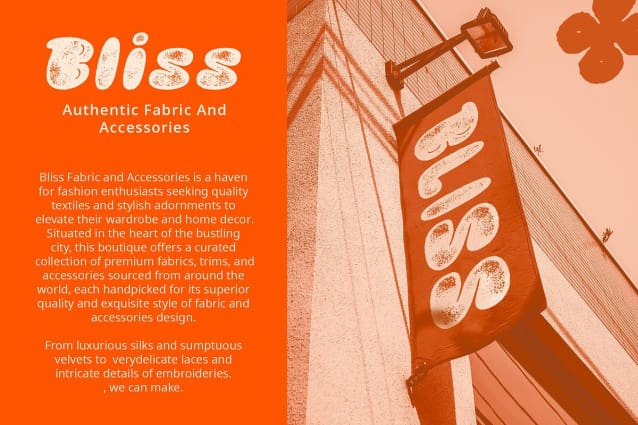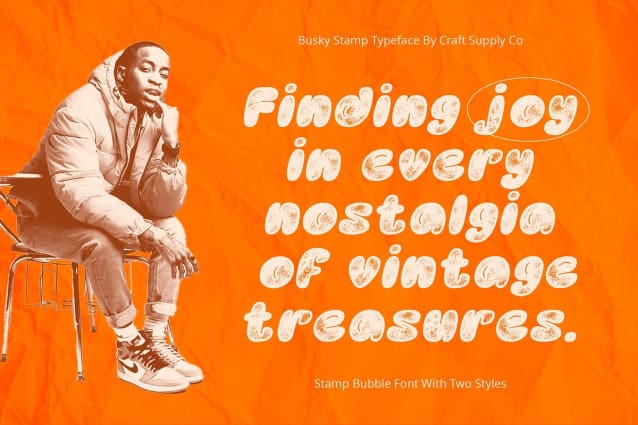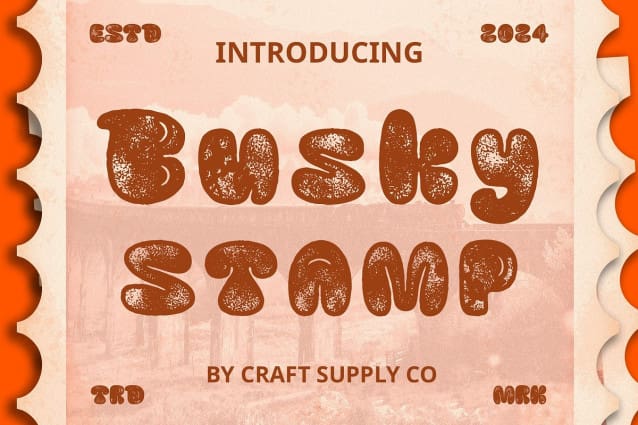
Busky Stamp Font
Busky Stamp Font: Vibrant Bubble Display Font. Inspired by Balloons and Graffiti Busky Stamp draws inspiration from the playful shapes of balloons and the urban energy of graffiti art. Its bubbly forms and bold strokes exude a lively and dynamic vibe.
Captivating Stamp Effect Featuring a unique stamp effect, This font adds an extra layer of authenticity and character to your designs. Each letter appears as if stamped onto the canvas, creating a visually striking impression.
Perfect for Eye-Catching Displays Tailored for display purposes, This font is ideal for grabbing attention in various settings. From posters and headlines to branding materials and social media graphics, its bold and expressive style ensures that your message pops.
Versatile Application Beyond its graffiti-inspired origins, This font offers versatility in application. Whether used for street art-inspired projects, urban-themed designs, or playful branding campaigns, its bubbly charm adds a touch of whimsy and flair.
Burst of Playful Energy This font injects a burst of playful energy into display typography. With its bubbly shapes, captivating stamp effect, and versatile application, it’s the perfect choice for designers seeking to add a touch of fun and vibrancy to their projects. Step into the world of This font and let your creativity soar!